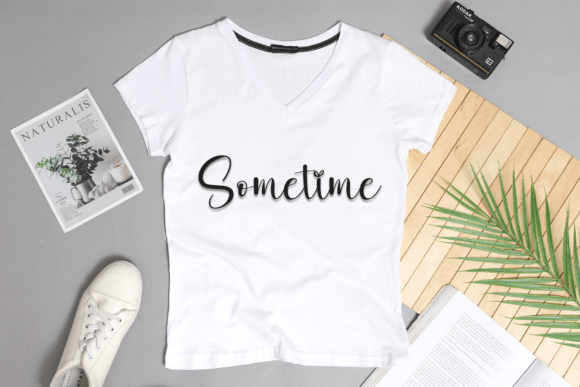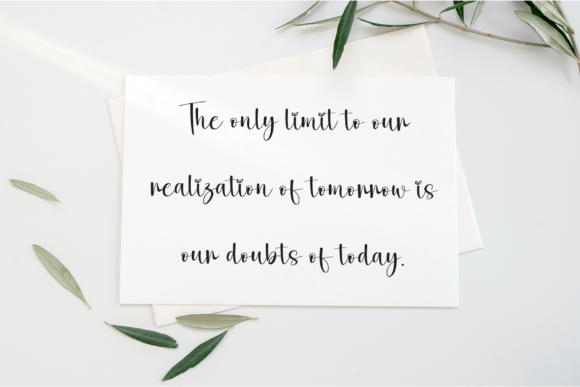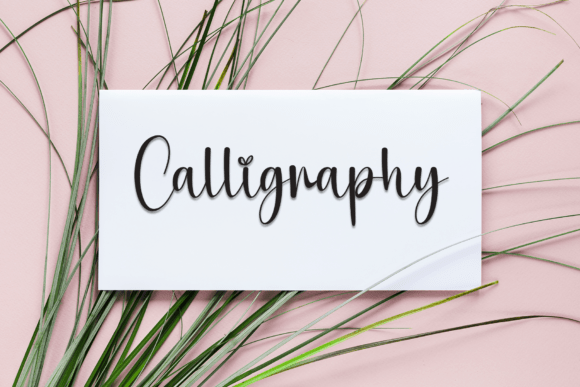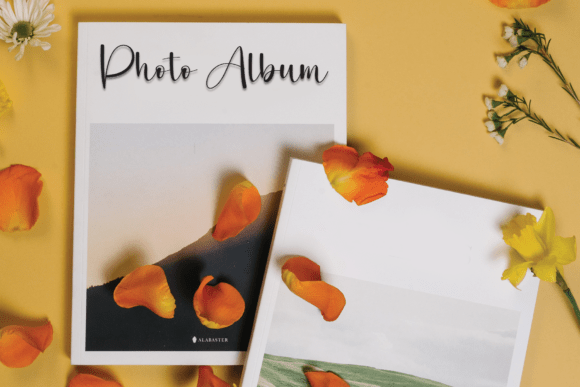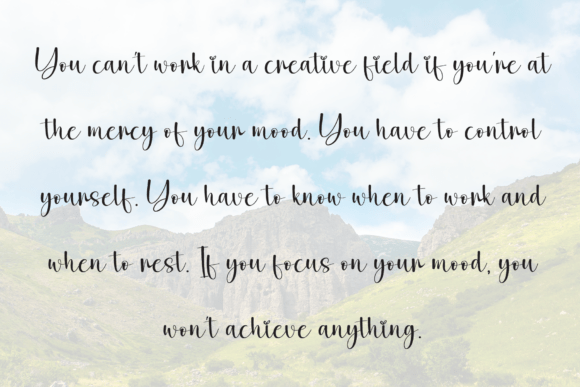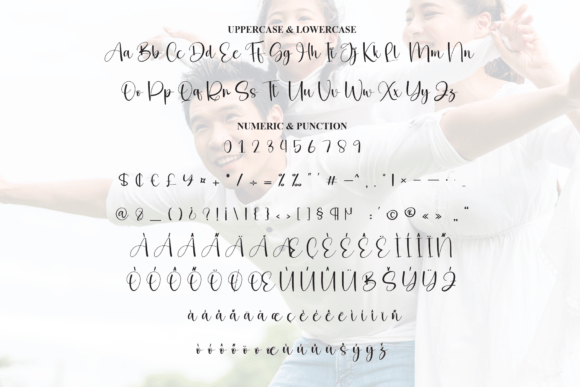
Introducing Happy Family Font: The Perfect Choice for Your Next Family-Themed Project
Are you looking for a font that exudes warmth, playfulness, and elegance? Look no further than Happy Family Font, a modern script font designed to bring a sense of joy and positivity to your family-themed projects. With its tall, flowing letters and playful swashes, Happy Family Font is the perfect choice for designers and crafters who want to create beautiful and engaging content.
A Cheerful and Elegant Font with a Heartwarming Feel
Happy Family Font is a cheerful and elegant modern script font that is sure to capture the hearts of your audience. Its unique blend of playfulness and sophistication makes it perfect for a wide range of applications, from family-themed projects and photo albums to quotes, branding, social media, and greeting cards. The font’s tall, flowing letters bring a sense of charm and positivity, making it ideal for creating content that is both beautiful and engaging.
Perfect for Family-Themed Projects
Happy Family Font is specifically designed with family-themed projects in mind. Whether you’re creating a photo album, a scrapbook, or a family tree, this font is sure to add a touch of warmth and personality to your project. The font’s playful swashes and heart detail in the āiā add a lovely, personal touch that is sure to make your project stand out.
Key Features of Happy Family Font
- Cheerful and Elegant Design: Happy Family Font features a unique blend of playfulness and sophistication, making it perfect for a wide range of applications.
- Tall, Flowing Letters: The font’s tall, flowing letters bring a sense of charm and positivity to your content.
- Playful Swashes: The font’s playful swashes add a touch of whimsy and fun to your content.
- Heart Detail in the āiā: The heart detail in the āiā adds a lovely, personal touch to your content.
Use Happy Family Font for a Variety of Projects
Happy Family Font is a versatile font that can be used for a wide range of projects, including:
- Family-Themed Projects: Use Happy Family Font to create beautiful and engaging family-themed projects, such as photo albums, scrapbooks, and family trees.
- Photo Albums: Add a touch of warmth and personality to your photo albums with Happy Family Font.
- Quotes: Use Happy Family Font to create inspiring and uplifting quotes that are sure to resonate with your audience.
- Branding: Use Happy Family Font to create a unique and memorable brand identity that reflects your values and personality.
- Social Media: Use Happy Family Font to create engaging and shareable social media content that is sure to capture the hearts of your followers.
- Greeting Cards: Use Happy Family Font to create beautiful and heartfelt greeting cards that are sure to bring a smile to the face of your loved ones.
Why Choose Happy Family Font?
There are many reasons why Happy Family Font is the perfect choice for your next project. Here are just a few:
- Unique and Memorable: Happy Family Font is a unique and memorable font that is sure to capture the hearts of your audience.
- Versatile: Happy Family Font can be used for a wide range of projects, from family-themed projects and photo albums to quotes, branding, social media, and greeting cards.
- Elegant and Playful: Happy Family Font features a unique blend of elegance and playfulness, making it perfect for creating content that is both beautiful and engaging.
In conclusion, Happy Family Font is a cheerful and elegant modern script font that is perfect for family-themed projects, photo albums, quotes, branding, social media, and greeting cards. With its tall, flowing letters, playful swashes, and heart detail in the āiā, Happy Family Font is sure to bring a sense of joy and positivity to your content. Whether you’re a designer or crafter, Happy Family Font is a versatile and memorable font that is sure to capture the hearts of your audience.